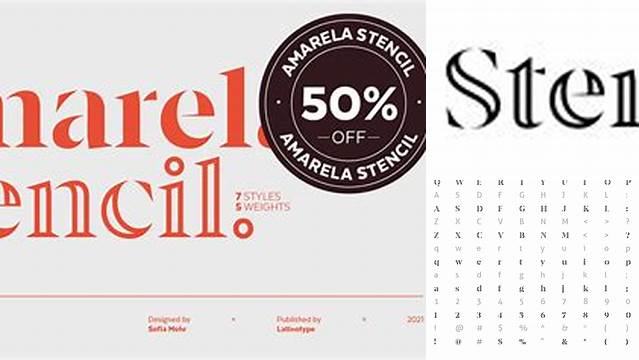
Hey guys! Are you looking to add a unique touch to your designs? The Amarela Stencil Two font might just be what you need. This font has a distinctive, modern stencil design that can make your projects stand out. In this article, we’re going to dive deep into everything about Amarela Stencil Two, from its features and uses to where you can download it for free. Let’s get started!
1. What is Amarela Stencil Two Font?
So, what exactly is Amarela Stencil Two font? It's a typeface that falls into the stencil font category, meaning it has breaks or gaps in its characters, giving it a cool, industrial, and contemporary look. This font is perfect for projects where you want to convey a sense of strength, modernity, or creativity. It's incredibly versatile and can be used in a variety of design contexts. Think posters, logos, branding materials, and even website headers. The unique design of Amarela Stencil Two makes it instantly recognizable and adds a touch of sophistication to any project. The beauty of this font lies in its ability to blend seamlessly with different design styles, whether you're going for a minimalist aesthetic or something more elaborate.
2. Key Features of Amarela Stencil Two
Let’s talk about the key features of Amarela Stencil Two font. One of the most notable aspects is its stencil design, which gives it a distinct, eye-catching appearance. The breaks in the characters aren’t just a stylistic choice; they also add to the font’s readability, making it legible even at smaller sizes. Amarela Stencil Two often includes multiple weights and styles, giving you flexibility in your designs. You might find regular, bold, italic, and even condensed versions, allowing you to create different visual hierarchies and emphasize certain elements in your text. Another key feature is its character set, which typically includes uppercase and lowercase letters, numbers, punctuation, and special characters. This comprehensive character set ensures that you can use the font in a variety of languages and contexts. Additionally, Amarela Stencil Two is designed with attention to spacing and kerning, ensuring that letters fit together harmoniously, creating a polished and professional look.
3. Ideal Uses for Amarela Stencil Two Font
Where can you best use the Amarela Stencil Two font? This font is incredibly versatile and shines in various design applications. For branding, it can give your logo and marketing materials a modern, edgy look. Think about using it for a tech startup or a creative agency. In the realm of print design, Amarela Stencil Two works wonders for posters, flyers, and magazine layouts, especially when you want to grab attention. Its unique stencil aesthetic makes it stand out on signage and billboards too. Web design is another area where this font can shine; use it for headings, banners, and calls-to-action to create a strong visual impact. If you're working on packaging design, Amarela Stencil Two can add a contemporary touch to product labels and boxes. Its bold appearance makes it suitable for headlines and titles, ensuring that your message is clear and impactful. Ultimately, Amarela Stencil Two is perfect for any project where you want to convey a sense of modernity, strength, and creativity.
5. Amarela Stencil Two Font Alternatives
Sometimes, it’s good to have options, right? If Amarela Stencil Two font isn't quite hitting the mark, there are plenty of fantastic alternatives you can explore. Stencil fonts, in general, have a cool, industrial vibe, and there's a wide range to choose from. One popular alternative is Bebas Neue, a sans-serif font with clean lines and a modern feel. It's versatile and works well in many different contexts. Another great option is Montserrat, a geometric sans-serif font that's both stylish and readable. If you're looking for something with a bit more character, consider using Roboto, a neo-grotesque sans-serif that's highly legible and comes in multiple weights. For a more rugged, military-inspired look, you might like Impact, a bold and condensed sans-serif font. And if you want something that feels a bit more vintage, check out League Gothic, a classic sans-serif font with a strong presence. Exploring these alternatives can help you find the perfect font for your project, ensuring it looks just the way you envision it.
6. Using Amarela Stencil Two in Logos
The Amarela Stencil Two font can be a fantastic choice for logos, guys! Its unique stencil design gives it a distinctive and modern look that can make your brand stand out. When using it in a logo, consider how the font's characteristics align with your brand's personality. If you're aiming for a tech-savvy, industrial, or creative vibe, Amarela Stencil Two is a great fit. The breaks in the characters add a visual interest that can capture attention and make your logo memorable. To make the most of this font in your logo, play around with different weights and styles. A bold version can convey strength and confidence, while a lighter version might feel more refined and sophisticated. Also, think about how the font pairs with other design elements, such as your brand colors and imagery. Keep the logo design clean and uncluttered to ensure the font remains legible and impactful. Experiment with letter spacing and kerning to achieve a balanced and professional look. Ultimately, using Amarela Stencil Two in your logo can help you create a brand identity that's both modern and memorable.
7. Amarela Stencil Two for Branding Materials
When it comes to branding materials, the Amarela Stencil Two font can be a game-changer. Using a consistent font across all your branding elements helps create a cohesive and professional image for your brand. This font’s modern and edgy aesthetic makes it perfect for a variety of applications, from business cards and letterheads to brochures and social media graphics. Think about how the font can reinforce your brand’s message and personality. If your brand is modern, innovative, or a bit unconventional, Amarela Stencil Two can be an excellent choice. For business cards, use it for your name, job title, and company name to make a strong first impression. On letterheads, the font can add a touch of sophistication while maintaining a contemporary feel. When designing brochures and marketing materials, use Amarela Stencil Two for headlines and subheadings to capture attention and guide the reader through your content. For social media graphics, this font can help your posts stand out in a crowded feed. Just ensure that you maintain a balance and use the font strategically to avoid overwhelming your design. By incorporating Amarela Stencil Two consistently across your branding materials, you can create a strong and recognizable brand identity.
8. Designing Posters with Amarela Stencil Two
If you're designing posters, the Amarela Stencil Two font can be your secret weapon. Its bold and distinctive stencil design is perfect for grabbing attention and making a statement. Whether you're promoting an event, a product, or a cause, this font can help your message stand out. When designing a poster, think about the overall aesthetic you want to achieve. Amarela Stencil Two works well in a variety of styles, from minimalist and modern to industrial and edgy. Use the font for headlines and key messages to ensure they’re immediately noticeable. Consider playing with the font's weight and size to create visual hierarchy and emphasize important information. Pair the font with strong visuals, such as high-quality images or bold graphics, to create a cohesive and impactful design. Also, think about the color palette you're using. Amarela Stencil Two can look particularly striking when paired with contrasting colors or used in a monochromatic scheme. Ensure the font is legible from a distance, especially if the poster will be viewed in public spaces. By strategically using Amarela Stencil Two in your poster designs, you can create eye-catching visuals that effectively communicate your message.
9. Amarela Stencil Two in Web Design
In the world of web design, the Amarela Stencil Two font can bring a unique flair to your site. Using this font for headings and banners can create a strong visual impact, making your website more memorable and engaging. When incorporating Amarela Stencil Two into your web design, consider how it aligns with your overall brand and the user experience. If your website has a modern, industrial, or creative theme, this font can be a perfect fit. Use it for main headings, section titles, and call-to-action buttons to draw attention to key elements on the page. Ensure the font is readable across different devices and screen sizes. Test how it looks on both desktop and mobile to ensure optimal readability. Pair Amarela Stencil Two with a complementary body font that is easy to read for longer text passages. A clean and simple sans-serif or serif font can work well in this context. Also, think about the loading speed of your website. Using too many custom fonts can slow down your site, so it's essential to optimize font files and use them judiciously. By thoughtfully integrating Amarela Stencil Two into your web design, you can create a visually appealing and user-friendly website.
30. The Future of Stencil Fonts Like Amarela Stencil Two
The future of stencil fonts like the Amarela Stencil Two font looks bright, as designers continue to explore creative ways to incorporate them into modern designs. Stencil fonts offer a unique blend of industrial edge and contemporary style, making them a versatile choice for a wide range of projects. As design trends evolve, we can expect to see stencil fonts used in innovative ways, such as in branding for tech startups, signage for urban spaces, and packaging for modern products. The development of new font technologies and software will likely lead to even more sophisticated stencil font designs, with improved readability and flexibility. We may also see the integration of stencil fonts into virtual reality and augmented reality applications, where their distinctive style can enhance the immersive experience. The versatility of stencil fonts also makes them well-suited for digital media, where they can add a touch of character and personality to websites, social media graphics, and online advertising. As designers continue to push the boundaries of typography, stencil fonts like Amarela Stencil Two will undoubtedly play a significant role in shaping the future of visual communication.